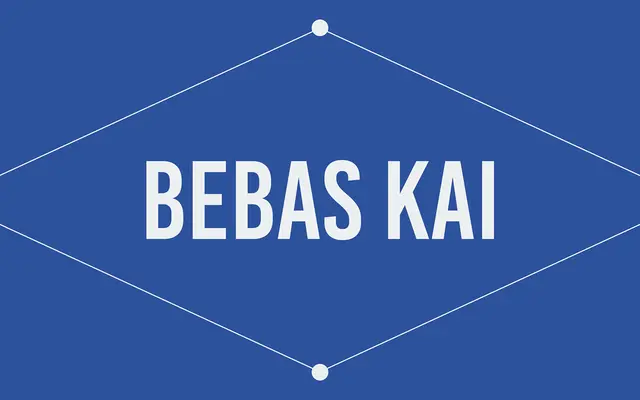
Bebas Kai
Dharma Type · Ryoichi Tsunekawa
A free all-caps display typeface from Ryoichi Tsunekawa, intended for headlines, captions and titling work.
Part of the Bebas family from Dharma Type, Kai is a free display cut designed for large-scale headline and titling use. It carries the tall, condensed character of the broader Bebas range and is released under the SIL Open Font Licence. Straightforward and no-frills, it suits posters and display contexts where a bold all-caps sans is needed without cost.
A display typeface designed specifically for headlines and titling, with an all-caps structure and tall proportions typical of condensed display sans-serif lettering.